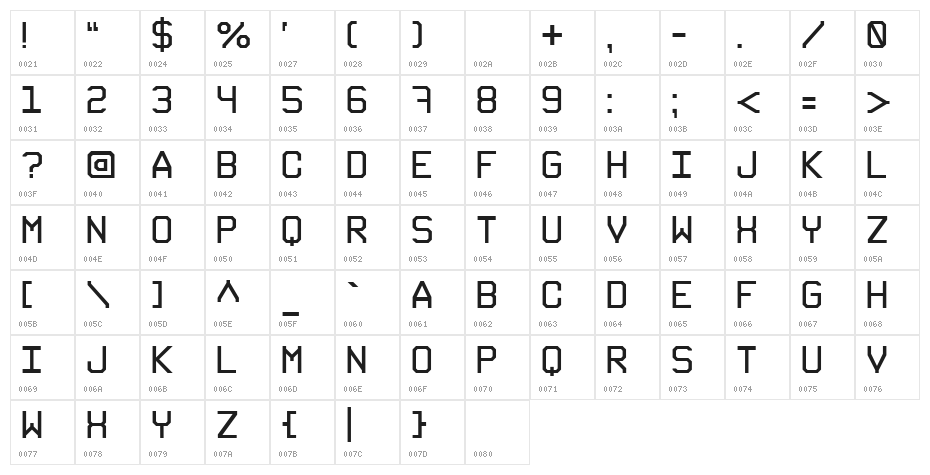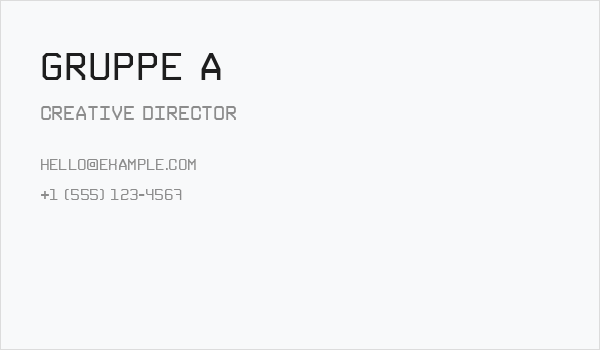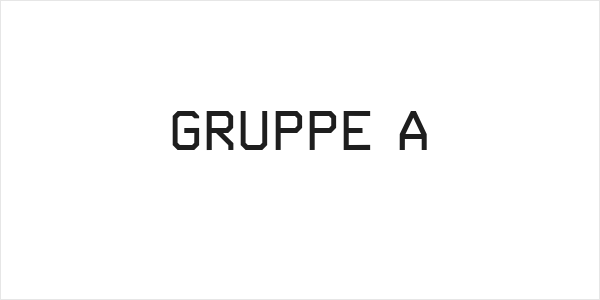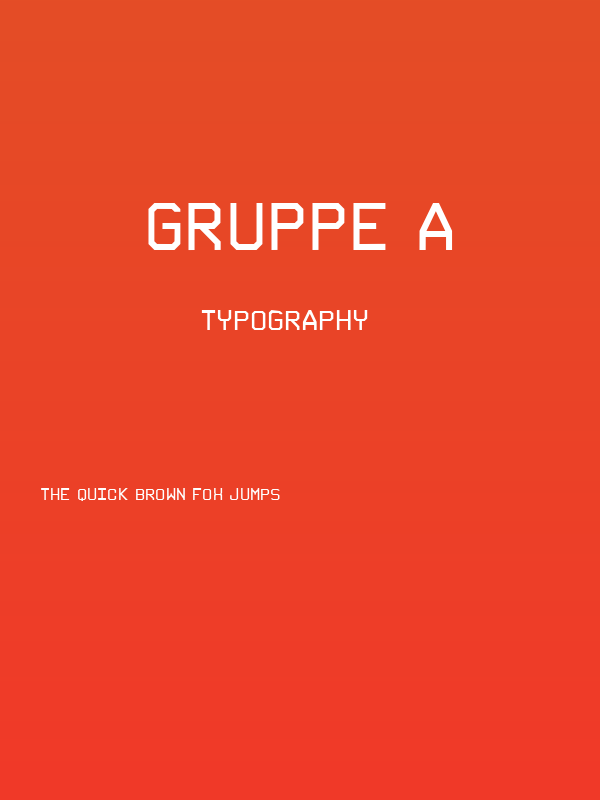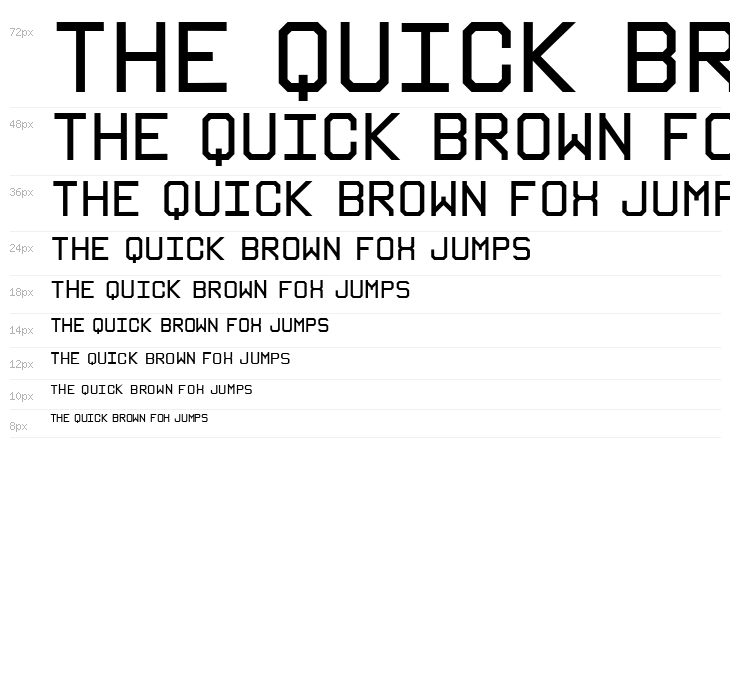
Gruppe A Font
Gruppe A Description
This font features a geometric and technical design, characterized by its angular and precise letterforms. The characters are constructed with straight lines and sharp angles, giving it a mechanical and futuristic appearance. The uniformity in stroke width across all characters contributes to a clean and consistent look. Its distinct style is reminiscent of digital or electronic displays, making it suitable for modern and tech-oriented themes. The font includes a full set of uppercase and lowercase letters, numerals, and a variety of special characters, ensuring versatility in usage.
| Use Case | Headlines, Logos, Digital Interfaces |
| Proposed Projects | Ideal for technology branding, digital interfaces, futuristic designs, and technical documentation. |